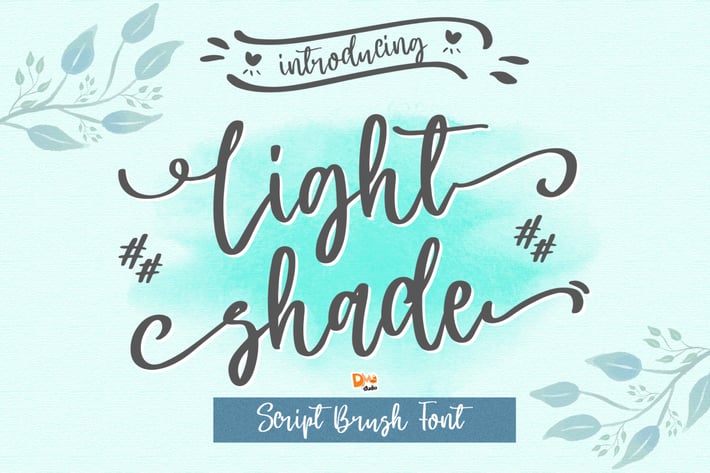
Light Shade - Script Font
Light Shade Script Brush Font
Get this cute and adorable modern style font, perfect for your calligraphy or typography needs!
Contains 26 separated swashes and doodles in OTF & TTF file so you can mix and match with your design freely!
- Numeric
- Symbols n Punctuations
- Separated Swashes and doodles in OTF & TTF